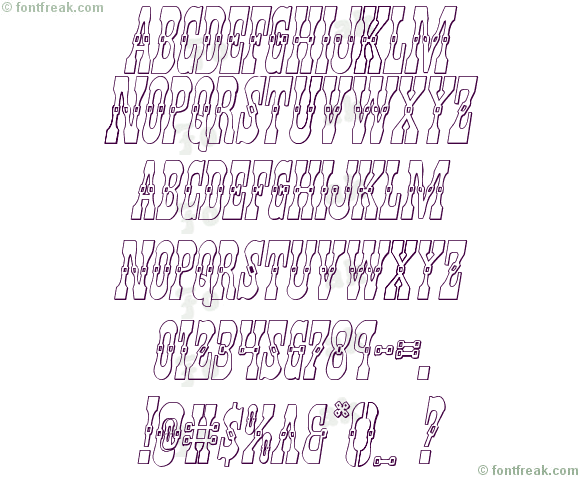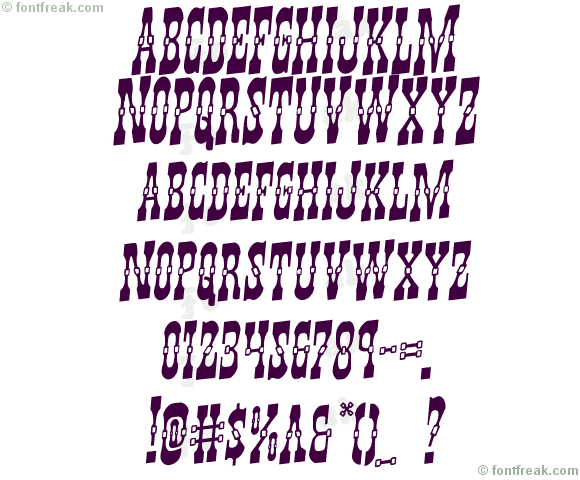
Younger Brothers Rotalic
Younger Brothers Rotalic, designed by Daniel Zadorozny in 2014, is a unique display font that falls under the category of decorative typefaces. It features a striking visual style characterized by its bold, condensed letters that exhibit a dynamic, 3D effect. The strokes are thick and pronounced, lending a sense of weight and presence to the text, while the italicized form adds a touch of elegance and motion. The drop caps and left-aligned rotations enhance its playful nature, making it stand out in various design contexts.
This font is particularly well-suited for creative projects where eye-catching typography is essential. It shines in applications such as movie posters, where its dramatic flair can capture attention and convey a sense of adventure. Restaurant menus can benefit from the font's unique aesthetic, helping to create a memorable dining experience for patrons. Additionally, Younger Brothers Rotalic is a fantastic choice for branding materials, especially for businesses looking to establish a strong, memorable identity. It can also be effectively used in event invitations, adding a distinctive touch to celebrations and gatherings.
What sets the Younger Brothers Rotalic apart is its ability to combine whimsy with boldness, making it a versatile choice for a range of creative endeavors. Its unique design elements allow for endless possibilities, ensuring that any project using this font will leave a lasting impression.